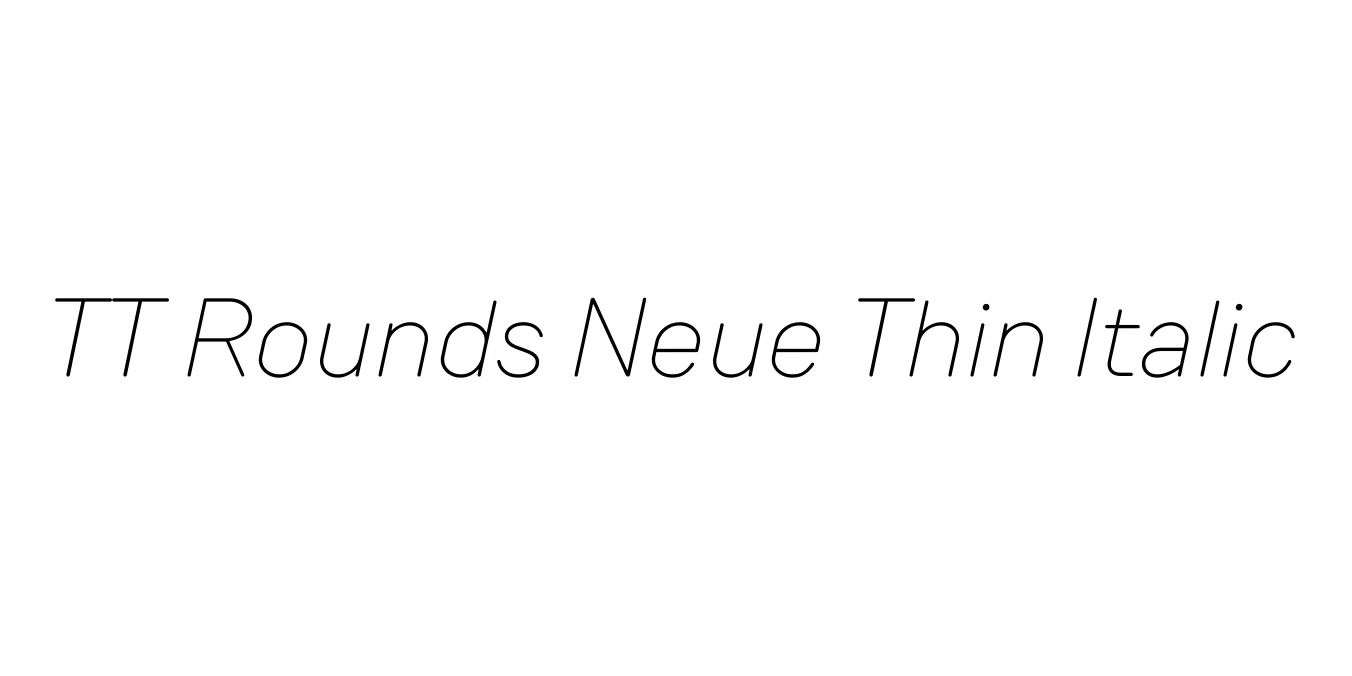
TT Rounds Neue Thin Italic
Designed by TypeType
| Category | Rounded Sans Serif |
| Designer | TypeType |
TT Rounds Neue Thin Italic is a comprehensive redesign of the original TT Rounds typeface, aimed at modernizing its geometric proportions and improving its technical performance. Developed by the TypeType team, this font family maintains the characteristic softness and friendliness of rounded terminals but introduces a more sophisticated balance between character shapes and whitespace. The Thin Italic weight is particularly striking for its delicate, needle-thin strokes that convey a sense of lightness and elegance.
As part of the TT Rounds Neue superfamily, this specific italic variant was crafted to provide a rhythmic and flowing motion to the text, making it highly effective for contemporary editorial design and high-end branding. The font supports a wide range of OpenType features and extensive language support, ensuring it meets the rigorous demands of professional designers looking for a soft yet precise sans serif solution.
TT Rounds Neue Thin Italic Best Uses
Perfect for eco-friendly products, healthcare, or tech startups seeking a friendly persona.
Works beautifully for elegant subheadings and pull quotes in lifestyle publications.
Ideal for soft and approachable user interfaces in modern applications.